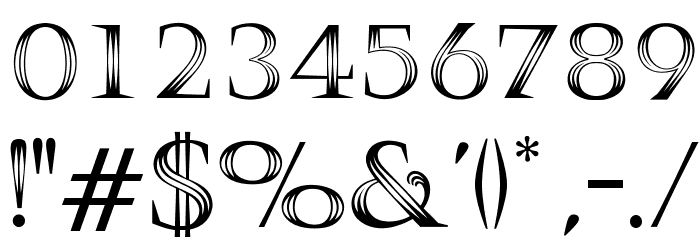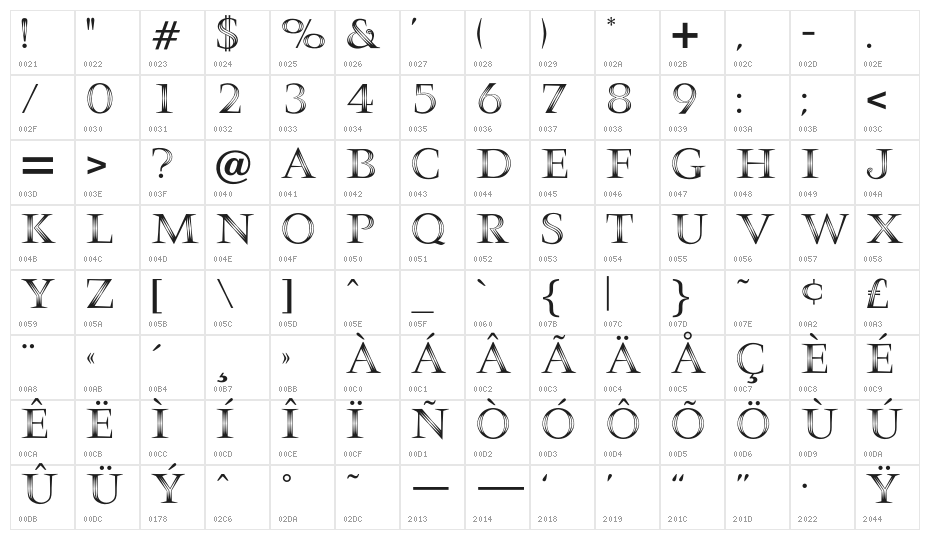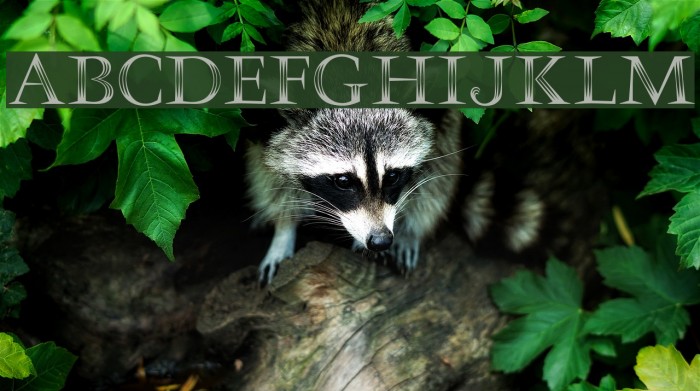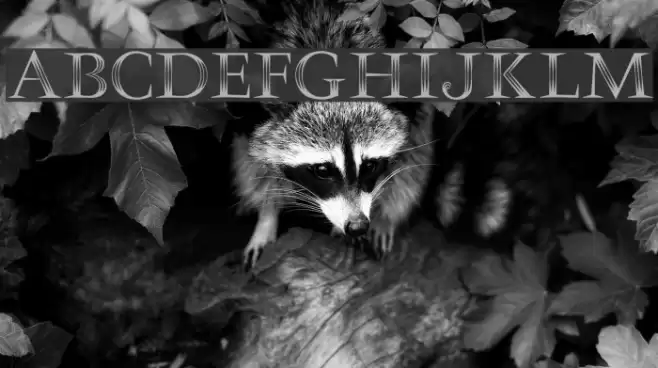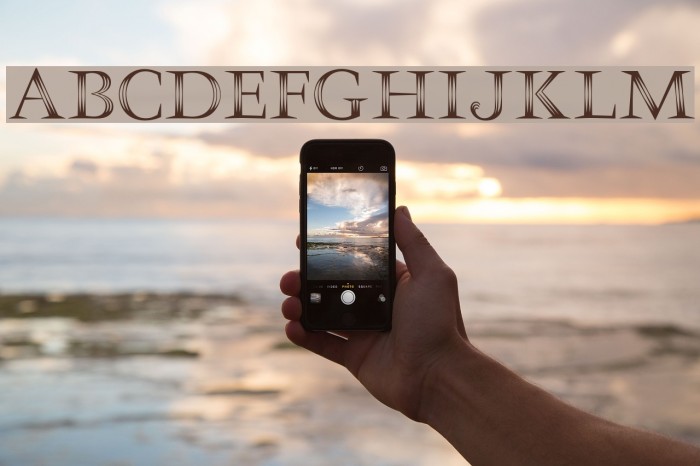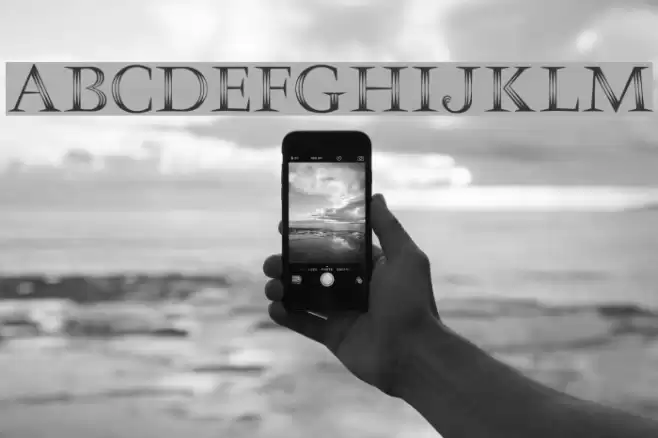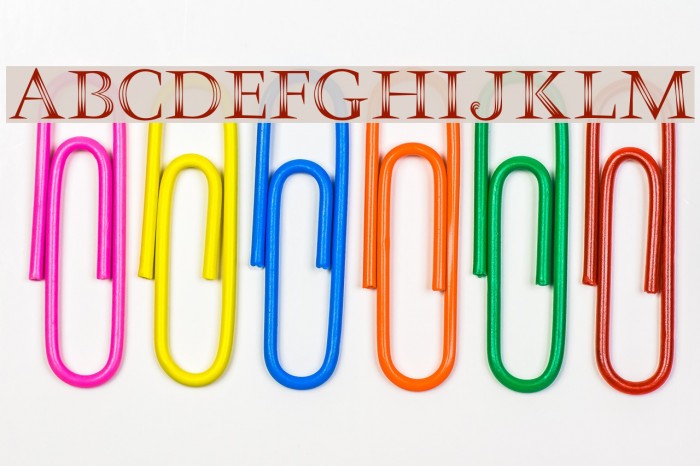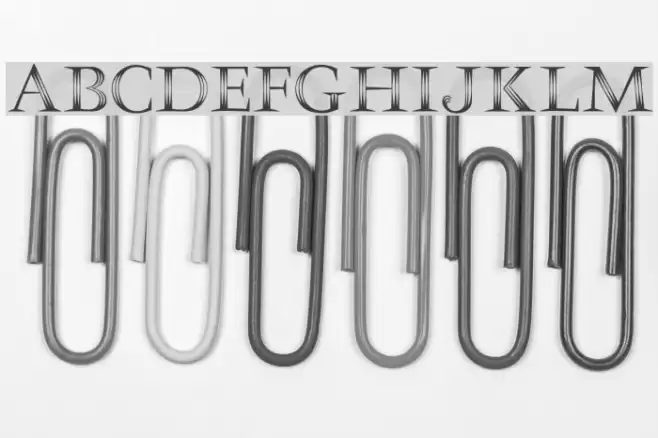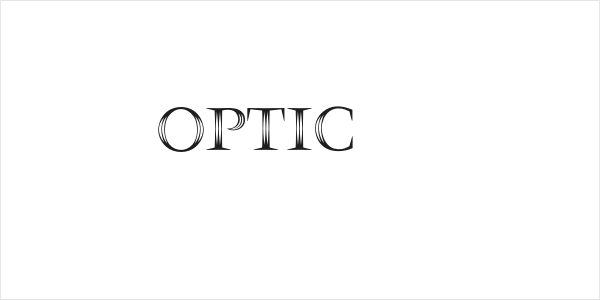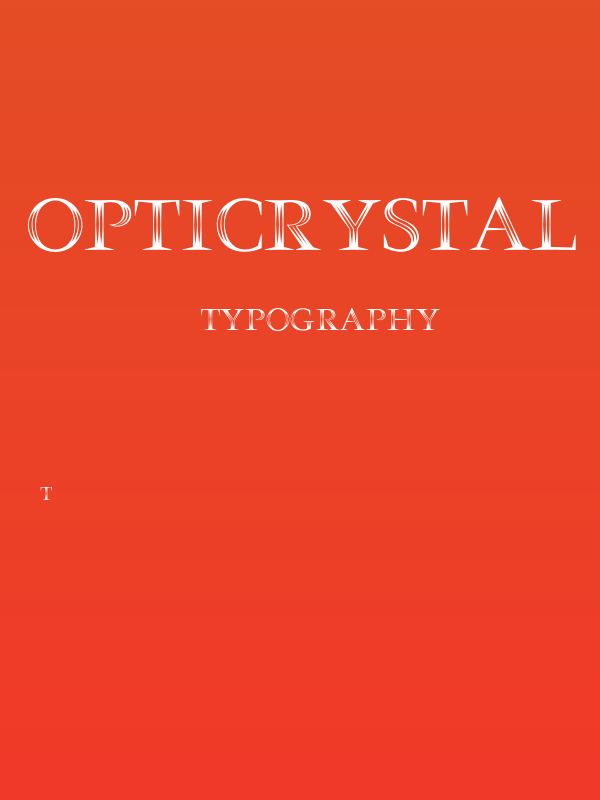
OPTICrystal Font
OPTICrystal Description
This font features a decorative and elegant style with intricate line work that creates a sense of movement and sophistication. The uppercase letters are bold and commanding, with a unique flair that makes them stand out. The lowercase letters maintain the same decorative quality, offering a cohesive look across different text sizes. The numerals are equally stylish, with a distinct design that complements the alphabetic characters. Special characters are crafted with the same attention to detail, ensuring a consistent aesthetic throughout. This font is perfect for projects that require a touch of elegance and creativity.
| Proposed Projects | Ideal for luxury branding, wedding invitations, high-end product packaging, and artistic posters. |